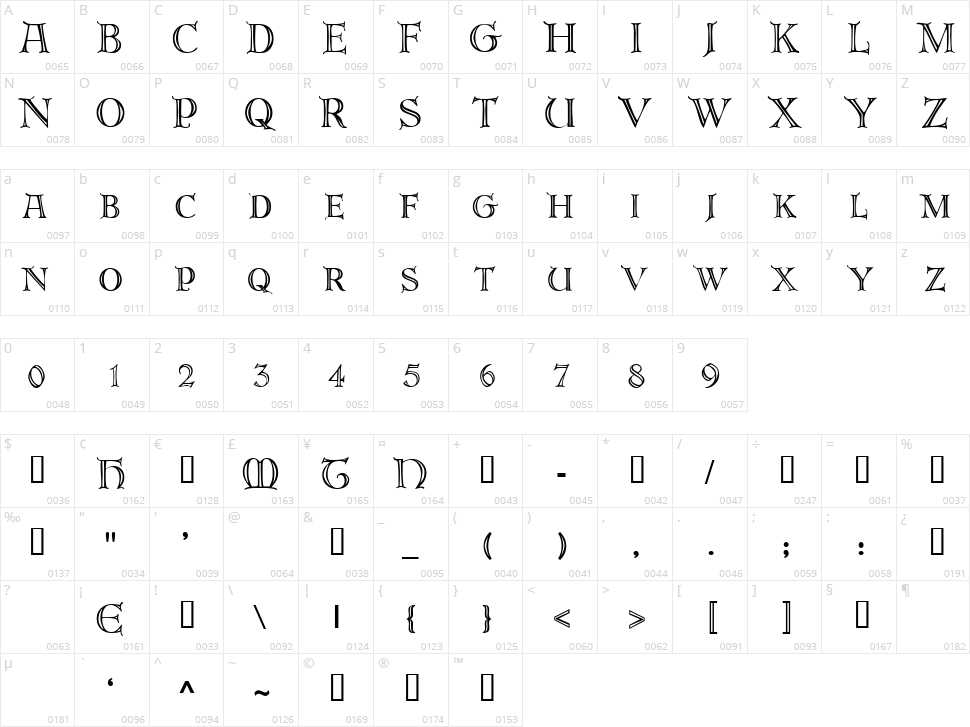
DeRoos Caps
DeRoosCaps - Moving along in my mastery of "drawing" programs and my Type construction education. Also done in 1992. Original image scanned from a Dover Clipart Type book. Upper Case & Lower Case are "scaled" versions of each other. Contains US English punctuation and all US Eng alphanumeric characters along with a few "alternate" letterforms placed in ASCII 0161-0166.
Designer Name: Dave Fabik